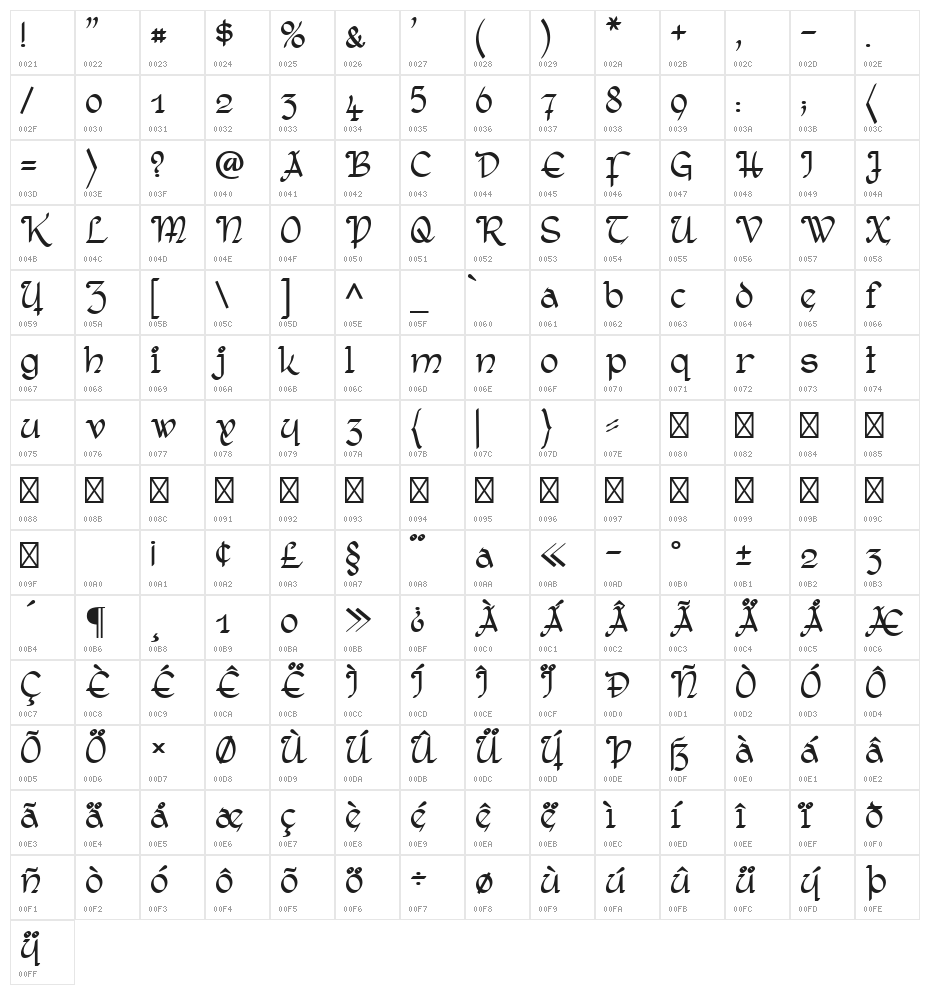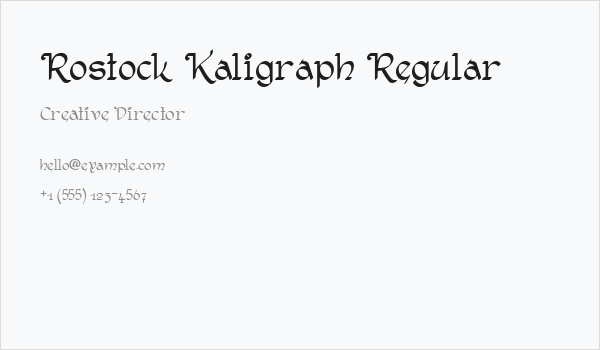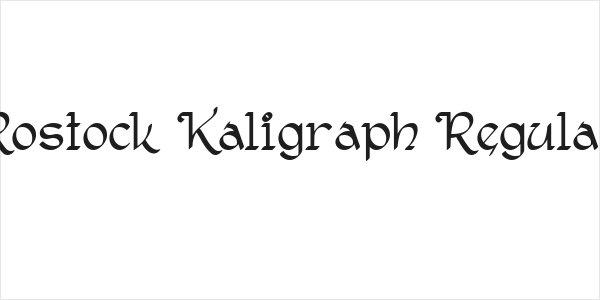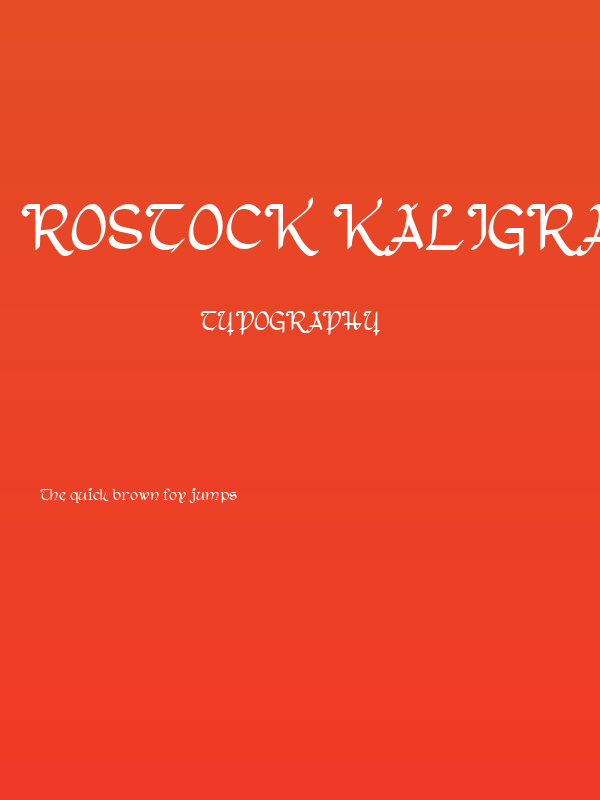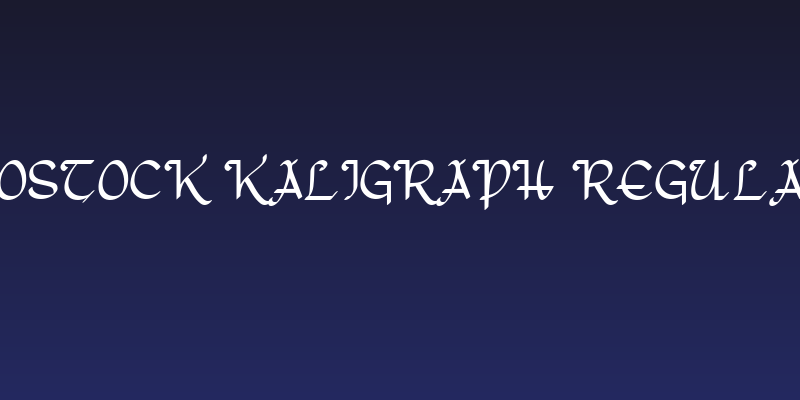
Rostock Kaligraph Regular Font
Rostock Kaligraph Regular Description
This font exhibits a calligraphic style with elegant, flowing strokes that mimic traditional handwriting. The uppercase letters are ornate, featuring distinctive flourishes and curves, while the lowercase letters maintain a consistent, smooth flow. The numerals are bold and slightly angular, providing a modern touch to the classic calligraphic design. Special characters are crafted with the same attention to detail, ensuring a cohesive look across all glyphs. The overall appearance is both sophisticated and artistic, making it suitable for projects that require a touch of elegance and creativity.
| Use Case | Logos, Invitations, Artistic Posters |
| Proposed Projects | Ideal for wedding invitations, formal event programs, artistic posters, and branding materials that require a classic yet creative touch. |